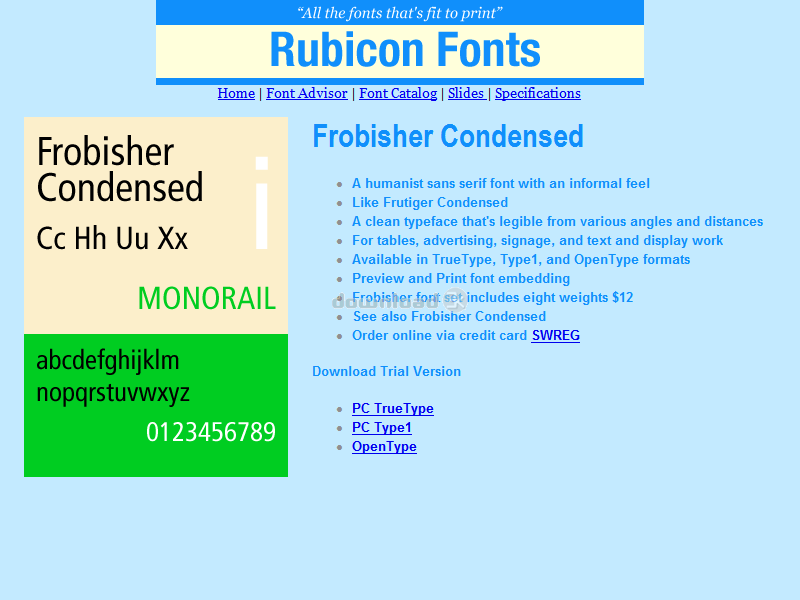
"Humanist condensed sans font, informal feel"
Rubicon Frobisher Condensed Fonts. Condensed humanist sans serif font with an informal feel. Like Frutiger Condensed. A clean typeface that?s legible from various angles, sizes, and distances. Fit more text into restricted spaces without losing legibility. Great for tables, advertising, signage, and display work. Use in any size. Accurate and hinted, matching font metrics, standard character set, kerning pairs. Professional print quality for inkjet, laser, typesetter to 3500 dpi. Purchasers receive 8 font variants as follows: Light, Light Oblique, Normal, Oblique, Bold, Bold Oblique, Extrabold, Extrabold Oblique.Requirements: No special system requirements.